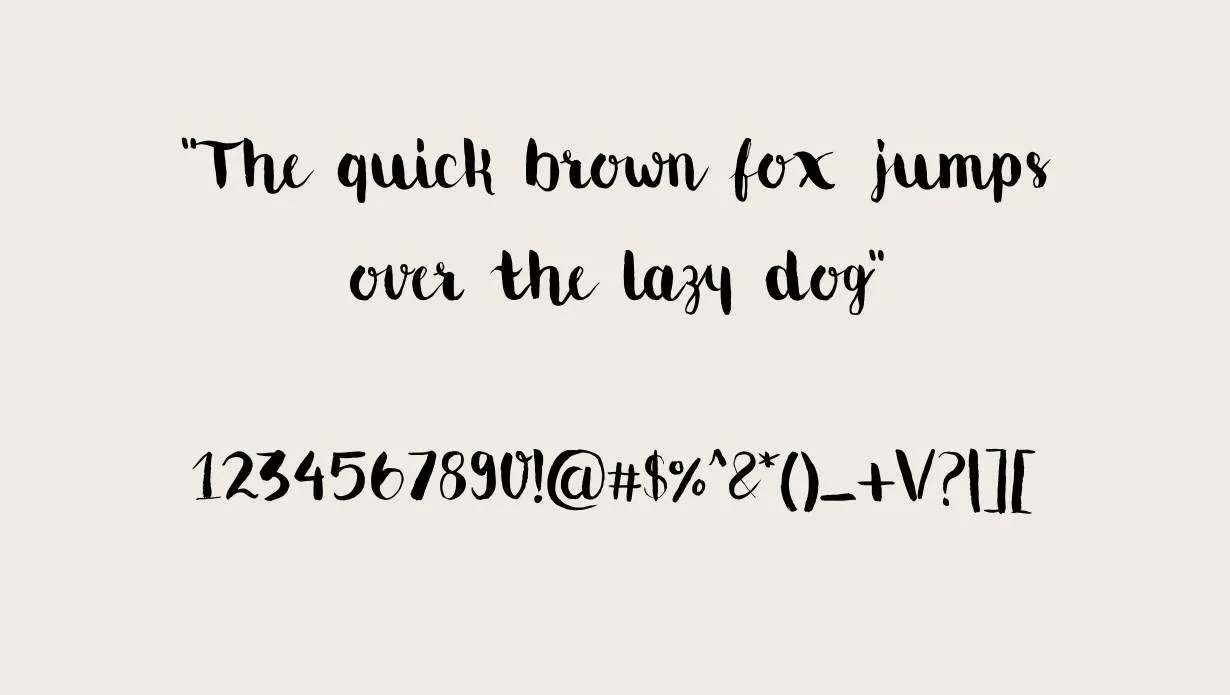
The Movus Brushpen font is like a stroke of creativity in letters. With its artistic and brushstroke-inspired design, it’s ideal for crafting expressive quotes, designing dynamic posters, or adding a touch of free-spirited style to your projects.
This font has a moderate weight and standard width, making your words look fluid and artistic. Imagine using the Movus Brushpen font for an art exhibition banner, turning your text into a masterpiece.